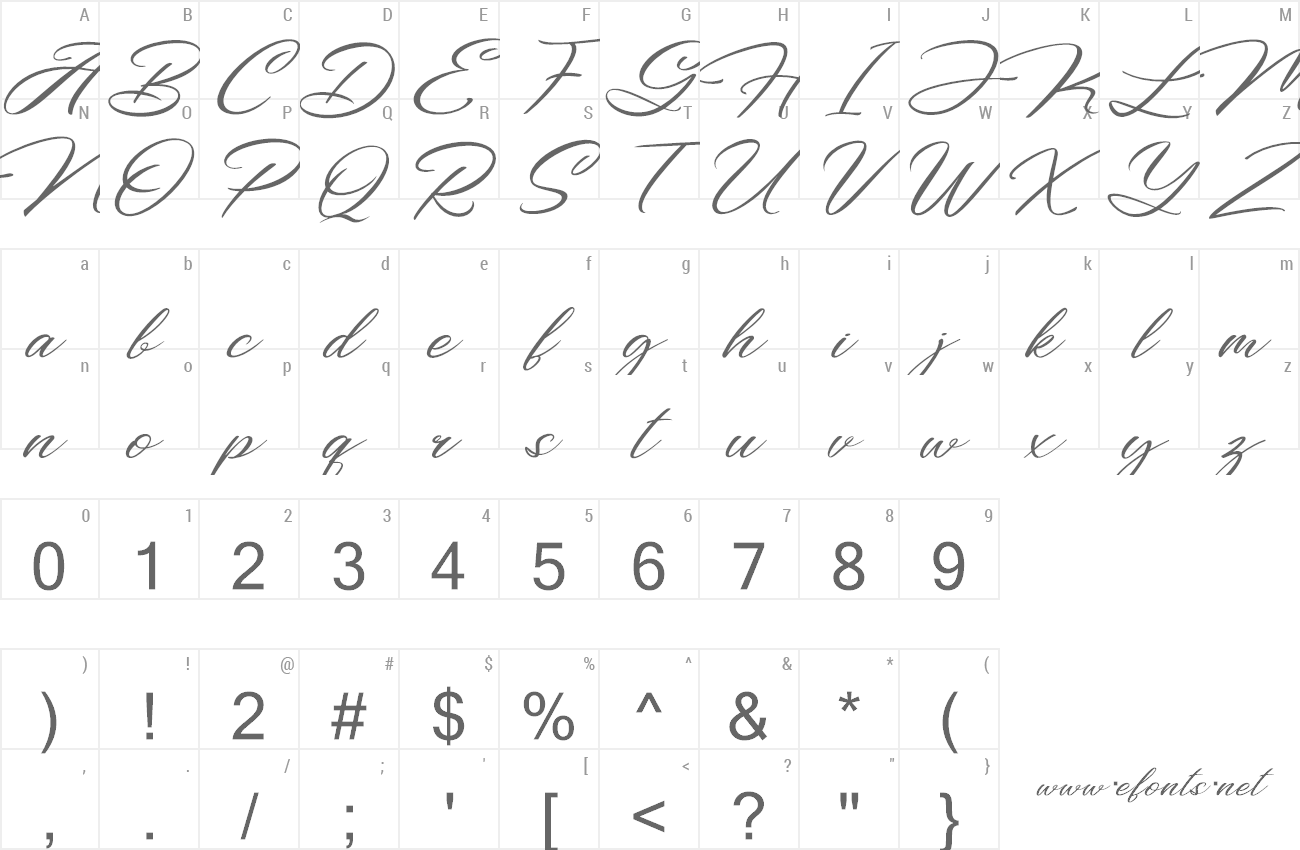
| Font name: | Bigtime |
| Author: | Din Studio |
Hello..Are you looking for a powerfull signature?.. yes , Bigtime script is the best choice. Bigtime Script come with natural, modern and luxury style. "Powerfull identity will give more value for your work", so you need this in your branding. for more information and purchase standard premium licence please visit this link : https://din-studio.com/font/detail/19 need more special licence please contact me at : donis4design@gmail.com Best regards Donis M |